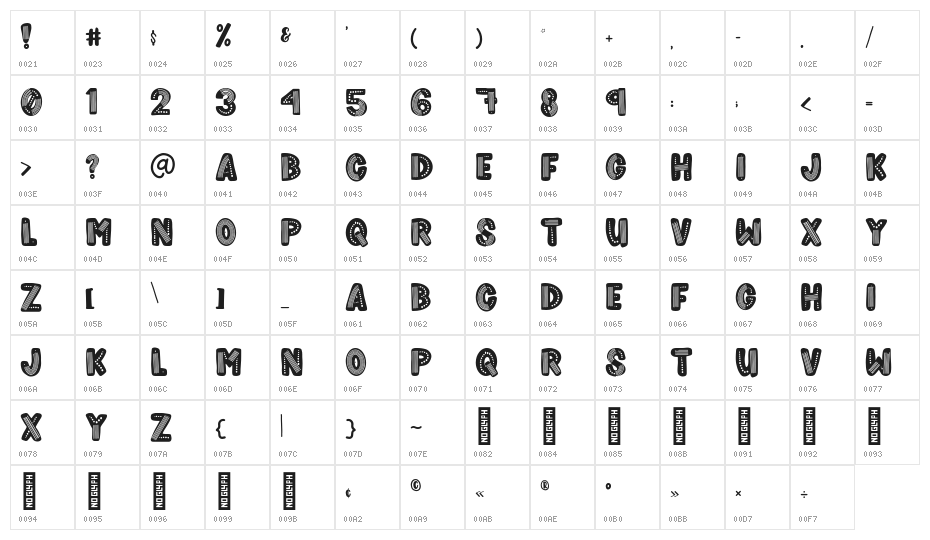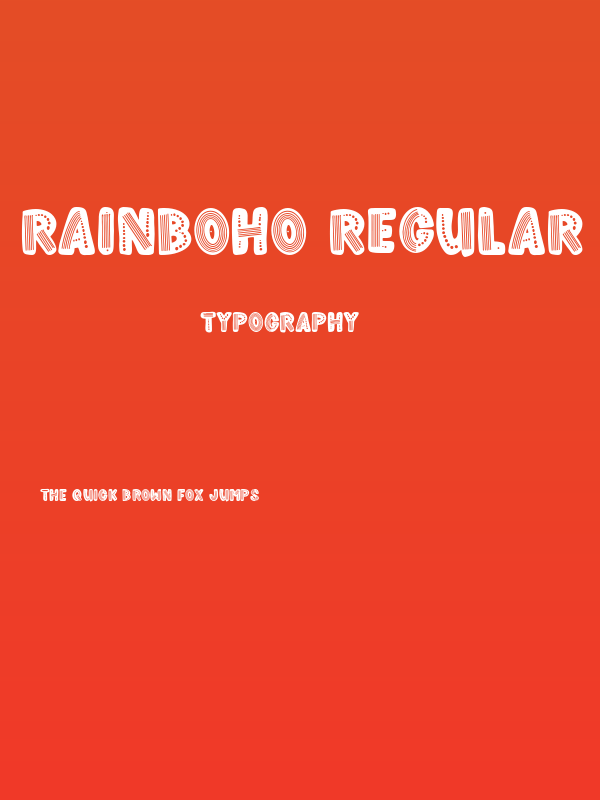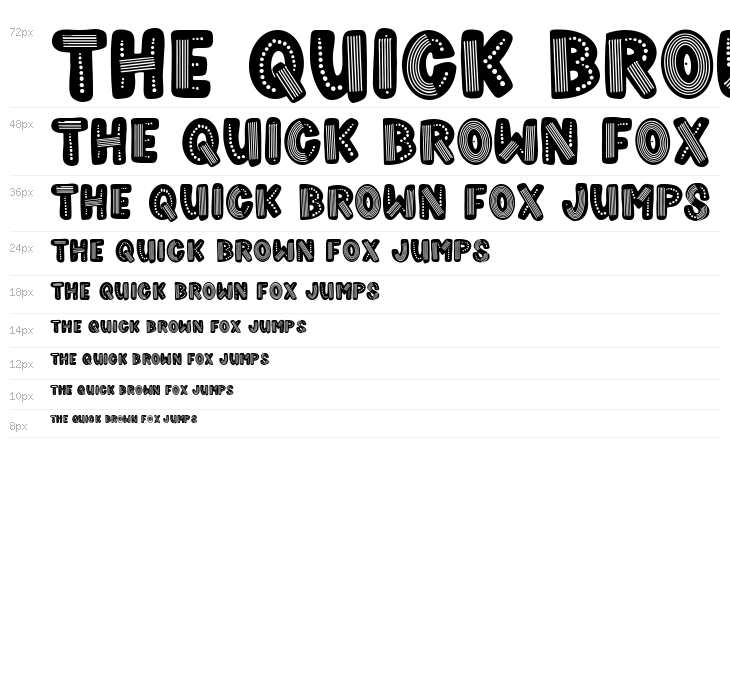
Rainboho Regular Font
Rainboho Regular Description
This font features a playful and decorative style with bold, rounded characters. Each letter is filled with a series of parallel lines and dots, creating a textured and dynamic appearance. The font has a whimsical and artistic flair, making it ideal for creative and fun projects. The characters are evenly spaced, and the overall design is consistent across both uppercase and lowercase letters, as well as numbers and special characters. The unique pattern within each character adds a sense of movement and energy, making it stand out in any design.
| Proposed Projects | Ideal for children's books, playful branding, event posters, and creative invitations. |